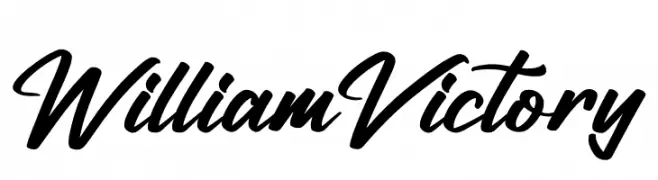
A flowing, elegant script font with a natural handwritten style.
An elegant cursive script font with interconnected letters and a natural handwriting style.
A fluid, cursive script font with a natural, handwritten style.
An elegant, flowing script font with a natural, handwritten appearance.
A flowing, cursive script font with a natural, handwritten style.
An elegant, flowing script font with a natural handwritten style.
A lively, cursive font with a natural, handwritten style.
A dynamic and expressive handwritten font with fluid strokes and a natural flow.
A bold, expressive handwritten font with fluid strokes and a natural flow.
A fluid and elegant script font with a natural handwriting style.